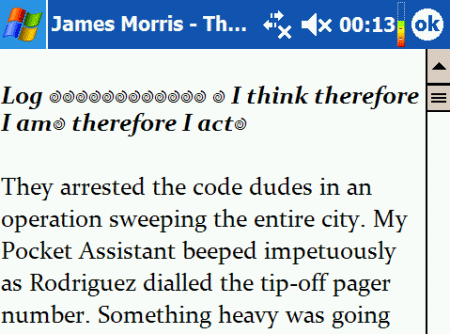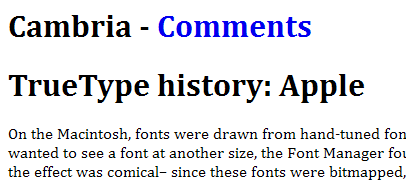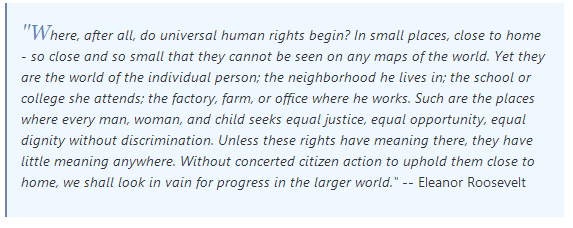
A Comprehensive Guide to Windows Vista Fonts for Designers
[T]here are no bad fonts — only inappropriate ones.
The majority of computer users became aware of Microsoft Windows Vista on January 30, 2007, when the company released the new operating system publicly.
You and I of course knew about it well beforehand. Once Vista was available for beta, many web designers adopted it early to begin trying — with varying levels of success — to figure out if they can incorporate Vista fonts into their designs.
Three things quickly became clear:
- They are beautiful typefaces.
- They are unusually — and, for designers, unacceptably — blurry unless you have ClearType or another anti-aliasing protocol enabled; but there are serious issues with ClearType.
- With some exceptions, they are markedly smaller in size than most fonts, making them difficult to incorporate into font stacks.
Trust Microsoft to create something attractive and potentially valuable like this set of spiffy new fonts (or an operating system like Vista), and then take steps to ensure they can’t be used easily.
But I like these fonts: they’re beautiful and they are available in many of our user’s computers (as much as 92% of all PCs use Windows as of May 2010[1]). In addition, the design community deserves some thought as to how to use them in their work.
Let’s see what we’re up against.
Breaking Down the Fonts
Vista “C” fonts.
Let’s examine the fonts themselves, starting with the best known of the group: the 6 “C” fonts — their nickname derived from the fact that all their names start with the letter C, and officially, because they are part of the Microsoft ClearType font collection.
John Hudson, the font designer who made one of the C” fonts (Constantia), shares some insights on how the “C” font names were picked:
“One of the Microsoft managers had come up with the idea that all the CT [Vista] fonts should have names that started with C. I can’t remember all the possible names I came up with, each of which ended up rejected after international trademark searches. Microsoft probably spent more money on lawyers doing trademark searches than they spent on the typeface development! As I recall, the day before the penultimate choice came back rejected, I’d been singing some psalms during vespers, and noticed the word constantia. Hey, I thought, that starts with C!”
The “C” List
Here is a bit of information about each of the “C” Vista fonts.
Calibri
The new default font for MS Office apps — replacing the tired old warhorse, Times New Roman — Calibri is a softer, more rounded sans-serif font.
Calibri’s designer Lucas de Groot says, “Its proportions allow high impact in tightly set lines of big and small type alike.”
When anti-aliasing is applied, it is an attractive and very reader-friendly font; when it is not applied, Calibri looks like something I’d draw with my foot.
Font maven Megan McDermott observes that Calibri “looks terrible in Opera and Firefox,” an observation I don’t agree with, but since I respect her work, I’m passing along her opinion.
Cambria
There are only two serif fonts in the “C” collection, and Cambria is, to my eye, the lesser of the two.
Microsoft states that Cambria was “designed for on-screen reading and to look good when printed at small sizes.
Designer Jelle Bosma calls it a “robust, all-purpose workhorse text face.” Van Wagener calls it “sturdy” and “formal.” I think the font lacks a certain elegance, though it is solid enough and is very strictly spaced.
If you’re interested in rendering mathematical equations, check out Cambria Math.
Candara
This sans-serif font incorporates some decorative flourishes, along the lines of Trebuchet MS and therefore is less useful in body text.
Consolas
The only monospace font of the set, Consolas is as appealing as any monospaced font out there. I cordially despise everyone’s default monospace fault, Courier New, much preferring Andale Mono and other more stylish monospaces. Like Calibri, Lucas de Groot designed this font.
Constantia
The other serif font of the collection, Constantia, is elegant without being overtly ornate. It’s clean, readable, and overall an excellent and versatile font.
Creator of the font, John Hudson, says he designed it to work in both print and electronic display formats.
On the screen, it looks very similar to Palatino Linotype or Book Antiqua, but with a bit more modern feel. Dan Cederholm of SimpleBits — in his quest to provide the best ampersand ever for use in your designs — finds Constantia’s ampersand (&) works well as a companion to Palatino/Palatino Linotype in the ampersand beautification code.
Corbel
Corbel is the last of the sans-serif fonts in the collection. It is clean and readable, but to me, it suffers from some of the same design limitations as Cambria. Microsoft calls Corbel’s appearance “uncluttered and clean” on screen, and claims it is “legible, clear and functional at small sizes.”
Typeface designer, James Arboghast, predicts that Vista fonts will become widely used “[a]bout a decade from now. These things take time to catch on.”